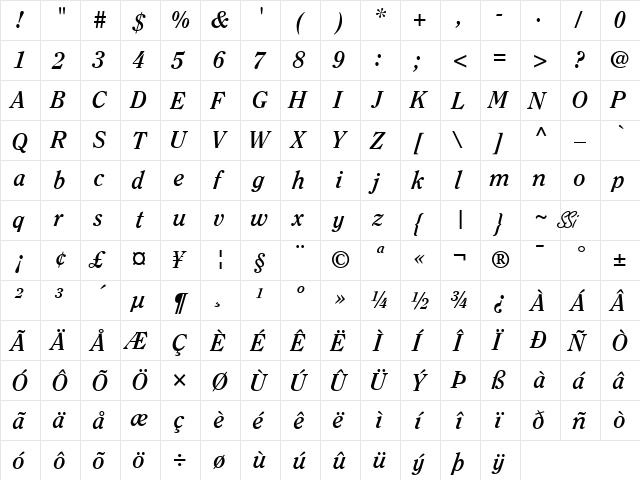
Clearface SSi Bold Italic
Design Context for Clearface SSi Typeface
Clearface SSi is a composed and adaptable typeface that performs quietly and consistently across a wide range of design contexts. The dynamic lean of this cut emphasises speed and emphasis in any layout. The heavy weight commands attention and anchors typographic hierarchies.
Pro Tip: Use Clearface SSi for emphasis, pull quotes, and subheadings where its slanted energy can add rhythm to the layout.